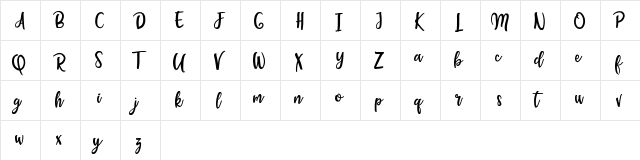
Scientesia Regular
| Foundry | Sizimon |
| Designer | Faisal Tanjung |
Design Context for Scientesia Typeface
Scientesia is a composed and adaptable typeface that performs quietly and consistently across a wide range of design contexts.